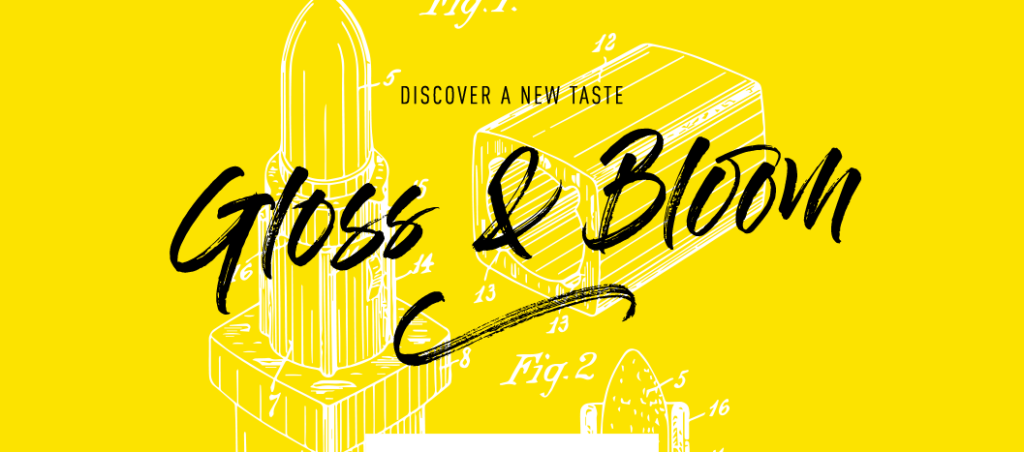
Gloss And Bloom Font
Gloss & Bloom is a rough script font made from the lettering work of Sean Delloro. The full commercial version includes a complete set of alternate letters, underlining and splatters.
The commercial version contains a complete set of alternate glyphes, contextual ligatures, underlinings and splatters to create your own style!